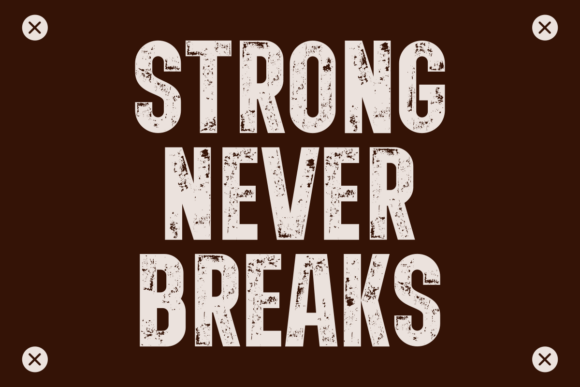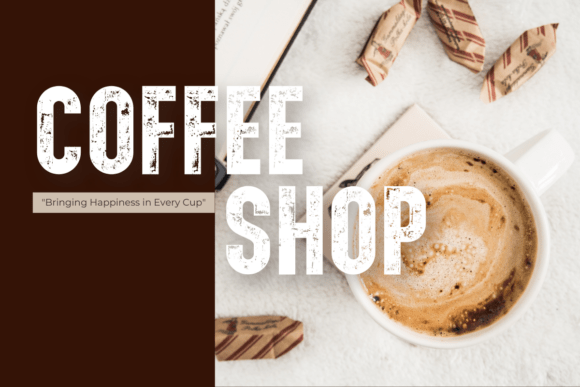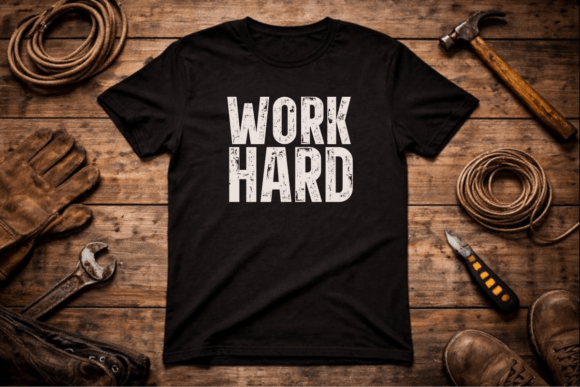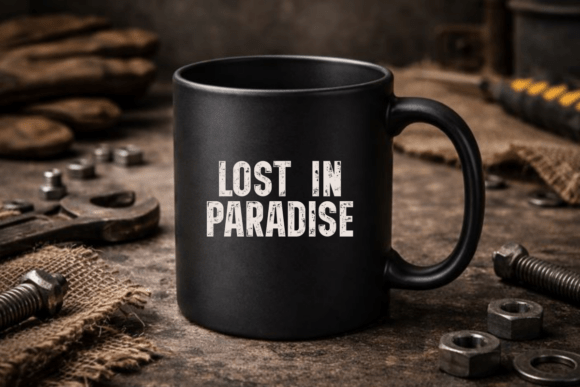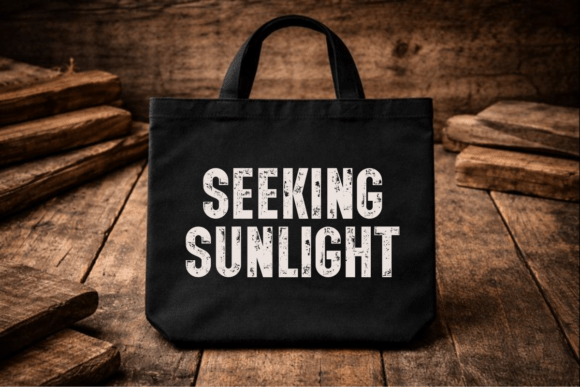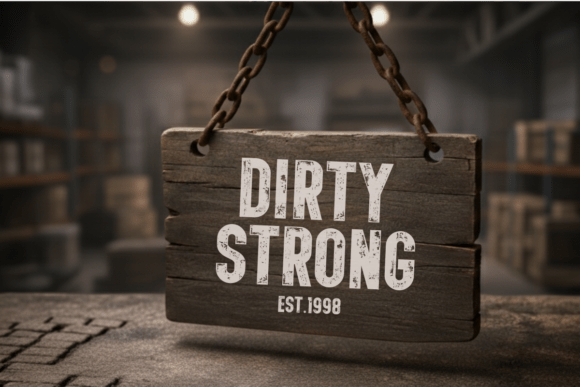
Introducing Dirty Strong Font: Unleash the Power of Distressed Typography
In the world of design, typography plays a crucial role in conveying the message and aesthetic of a brand. For designers and crafters looking for a bold, rugged, and masculine font to add a touch of industrial chic to their projects, look no further than Dirty Strong Font. This distressed sans-serif display font is specifically designed to evoke the gritty, vintage feel of industrial aesthetics and streetwear, making it perfect for a wide range of applications.
The Power of Distressed Typography
Dirty Strong Font boasts an authentic, gritty texture that gives it a worn, eroded look. This unique characteristic makes it an excellent choice for designers seeking to add a touch of ruggedness to their designs. Whether you’re working on t-shirt designs, tote bags, warehouse signage, or branding logos, this font is sure to make a statement. The distressed texture of Dirty Strong Font adds a layer of depth and character to your designs, setting them apart from the clean, generic fonts often used in design.
Design Applications for Dirty Strong Font
The versatility of Dirty Strong Font makes it suitable for a wide range of design applications. Here are a few ideas to get you started:
- T-shirt designs: Add a bold, masculine touch to your t-shirt designs with Dirty Strong Font. Perfect for printing on crew necks, hoodies, or tank tops.
- Tote bags: Give your tote bag designs a rugged, industrial look with this distressed font.
- Warehouse signage: Create eye-catching warehouse signs with Dirty Strong Font, perfect for labeling storage units, warning signs, or directional signs.
- Branding logos: Use Dirty Strong Font to create a bold, memorable logo for your brand. Ideal for companies in the industrial, manufacturing, or construction sectors.
- Coffee packaging: Add a touch of industrial chic to your coffee packaging with Dirty Strong Font. Perfect for specialty coffee brands looking for a unique look.
- Automotive posters: Create bold, eye-catching posters for automotive events or promotions with Dirty Strong Font.
Why Choose Dirty Strong Font?
So why choose Dirty Strong Font over other fonts on the market? Here are a few reasons:
- Unique texture: The distressed texture of Dirty Strong Font gives it a unique, one-of-a-kind look that’s sure to stand out.
- Bold and masculine: This font exudes a bold, masculine feel that’s perfect for designs that require a strong aesthetic.
- Versatile: Dirty Strong Font can be used in a wide range of design applications, from t-shirt designs to branding logos.
- Easy to read: Despite its distressed texture, Dirty Strong Font remains easy to read, making it perfect for use in signage, posters, and other applications where legibility is key.
Tips for Using Dirty Strong Font
To get the most out of Dirty Strong Font, here are a few tips to keep in mind:
- Use it boldly: Dirty Strong Font is designed to make a statement, so don’t be afraid to use it in bold, eye-catching ways.
- Experiment with colors: The distressed texture of Dirty Strong Font looks great in a range of colors, from bold brights to muted earth tones.
- Pair it with contrasting fonts: For added visual interest, pair Dirty Strong Font with a clean, contrasting font to create visual hierarchy.
Dirty Strong Font is a powerful, versatile font that’s perfect for designers and crafters looking to add a touch of industrial chic to their projects. With its unique, distressed texture and bold, masculine aesthetic, this font is sure to make a statement. Whether you’re working on t-shirt designs, branding logos, or warehouse signage, Dirty Strong Font is the perfect choice for adding a rugged, industrial touch to your designs.